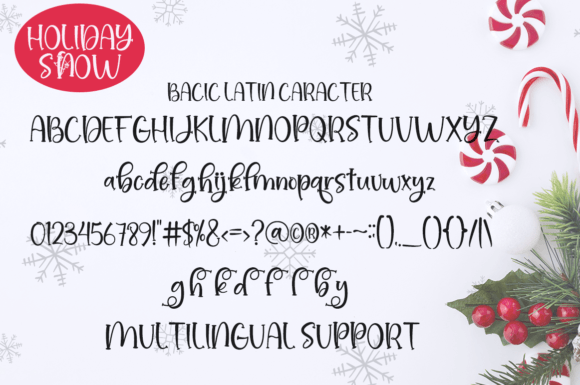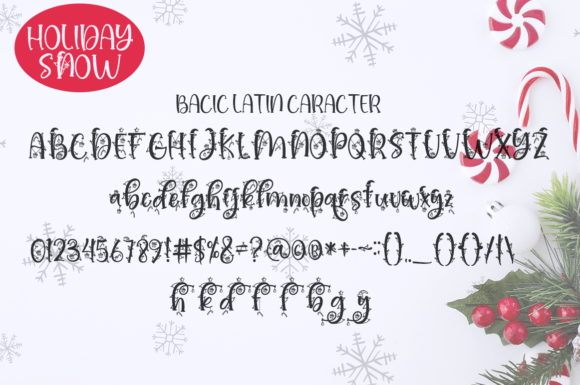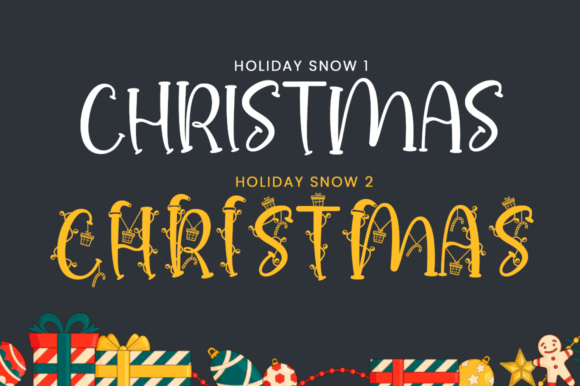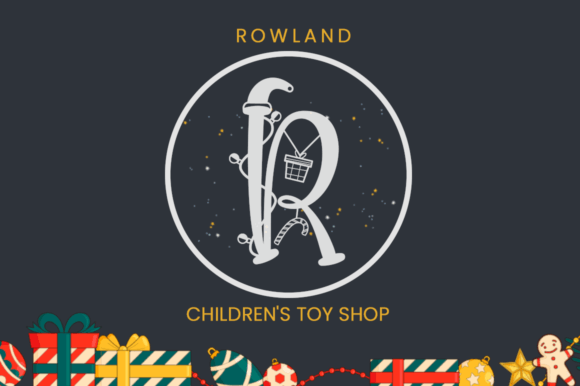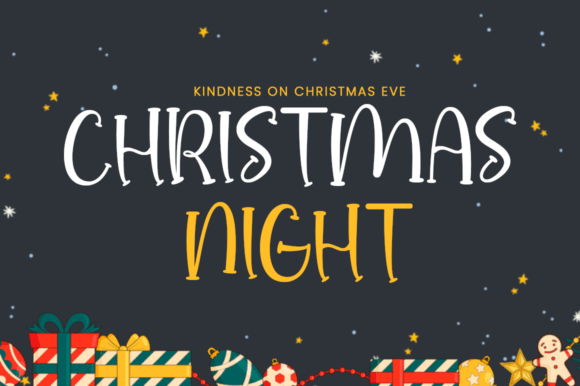
Deck the Halls with Holiday Cheer
There’s something magical about crafting the perfect holiday design – the twinkling lights, the cozy atmosphere, and the excitement of sharing it with loved ones. As designers, we pour our hearts into creating projects that evoke the spirit of the season. But what sets a design apart from the rest? A dash of festive flair, perhaps?
Enter the Holiday Snow Font, a charming handwritten font that’s perfect for adding a touch of Christmas magic to your creative projects. With its PUA-encoded glyphs and ligatures, you’ll be able to access a world of festive possibilities with ease. Whether you’re designing greeting cards, gift tags, or social media graphics, this font is sure to bring a smile to your audience’s faces.
Holiday Snow Font Key Features
- Size: The font family consists of 5 styles, ranging from Thin to Extra Bold, each with its unique characteristics.
- Unique Characteristics: This font features intricate snowflake designs, intricate details, and a festive atmosphere, making it perfect for winter-themed projects.
- Font Styles: The font family includes 5 styles: Thin, Light, Regular, Medium, and Extra Bold, each with its own unique feel and application.
Designer Review: Holiday Snow Font
Overall, I think the Holiday Snow Font is a charming and festive addition to any design project. It’s perfect for creating a winter wonderland feel, especially when paired with snowy patterns and deep blues.
Here are some things that I think work well in this font: ✨
- Clean, crisp lines that give the font a modern feel
- Delicate, lacy details that evoke a sense of snowflakes
- Good legibility, even at smaller font sizes
- A wide range of characters, including punctuation and numbers
However, I do have a few concerns about the font: ⚠️
- The font is a bit too ornate for some designs, and can feel overwhelming if used too extensively
- The font may not be suitable for body text, as it’s quite decorative and may be difficult to read at larger font sizes
- The font doesn’t have a bold or italic version, which may limit its versatility
Overall, I think the Holiday Snow Font is a great choice for holiday-themed designs, or for adding a touch of whimsy to a project. However, it’s not a good all-around font, and should be used judiciously to avoid overwhelming the design.
The Holiday Snow Font is perfect for:
- Winter-themed designs (e.g. Christmas cards, New Year’s Eve invitations)
- Outdoor events (e.g. winter festivals, snowboarding competitions)
- Gift tags and labels
To get the most out of the Holiday Snow Font:
- Use it in combination with winter-themed graphics and images.
- Experiment with different font sizes
Alternatives to Holiday Snow Font
Winter Wonderland
Winter Wonderland is a beautiful, elegant script font perfect for creating a magical and festive atmosphere. It’s ideal for Christmas and winter-themed designs, gift tags, and invitations. Compared to Holiday Snow Font, Winter Wonderland has a more refined and sophisticated look, making it suitable for high-end designs.
Christmas Magic
Christmas Magic is a fun, playful font that’s perfect for creating a lively and festive atmosphere. It’s ideal for children’s designs, party invitations, and social media graphics. Compared to Holiday Snow Font, Christmas Magic has a more energetic and youthful vibe, making it suitable for designs targeting a younger audience.
Snowflake Script
Snowflake Script is a delicate, whimsical font that’s perfect for creating a light and airy atmosphere. It’s ideal for winter-themed designs, gift tags, and packaging. Compared to Holiday Snow Font, Snowflake Script has a more ethereal and dreamy quality, making it suitable for designs that require a touch of magic.
Q: Does the Holiday Snow Font support Unicode characters?
Yes, the Holiday Snow Font supports a wide range of Unicode characters, including Latin, Cyrillic, and Greek alphabets. This allows designers to use the font to create text in multiple languages and scripts. However, please note that some characters may not display correctly in all applications or operating systems.